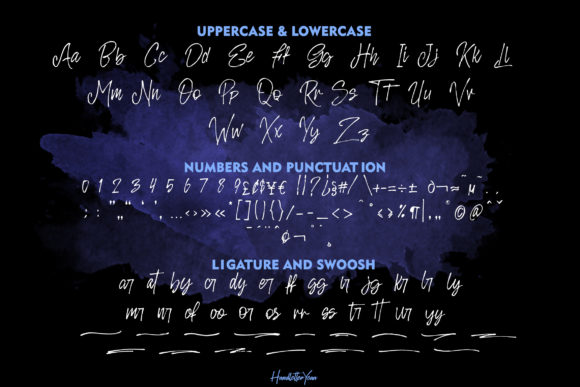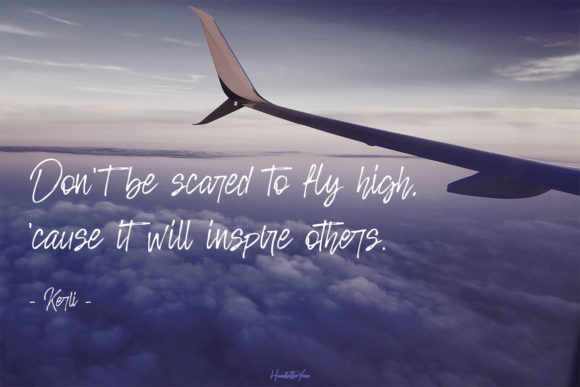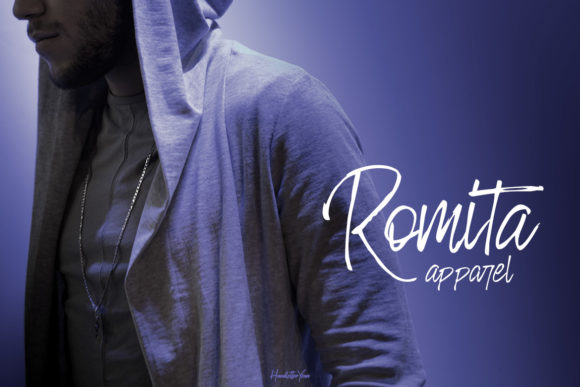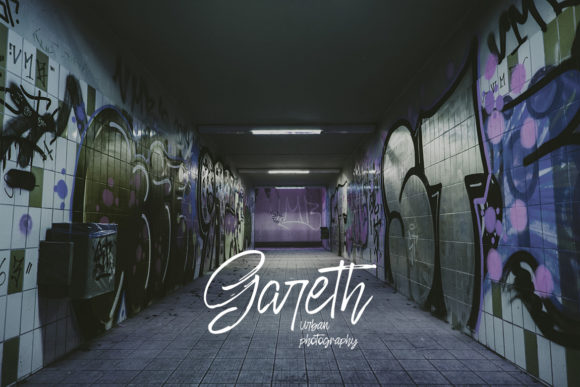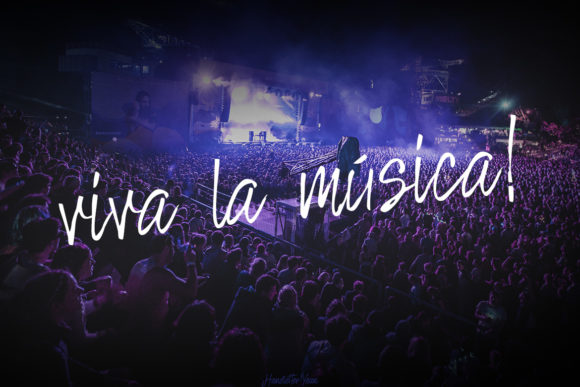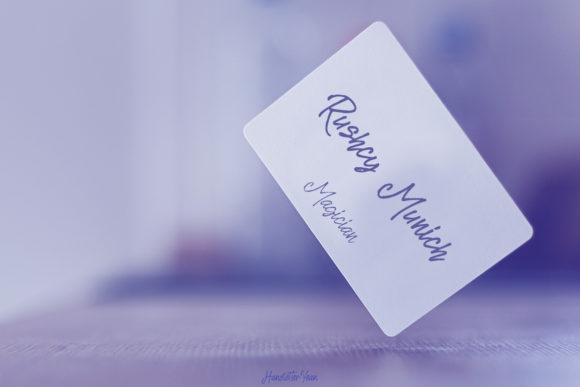
Introduction to Rosianne Font
Rosianne is a bold and unique handwritten font with an elegant and classic feel.
It will effortlessly turn any creative idea into a stand out .
Key Features of Rosianne Font
Why Choose Rosianne Font?